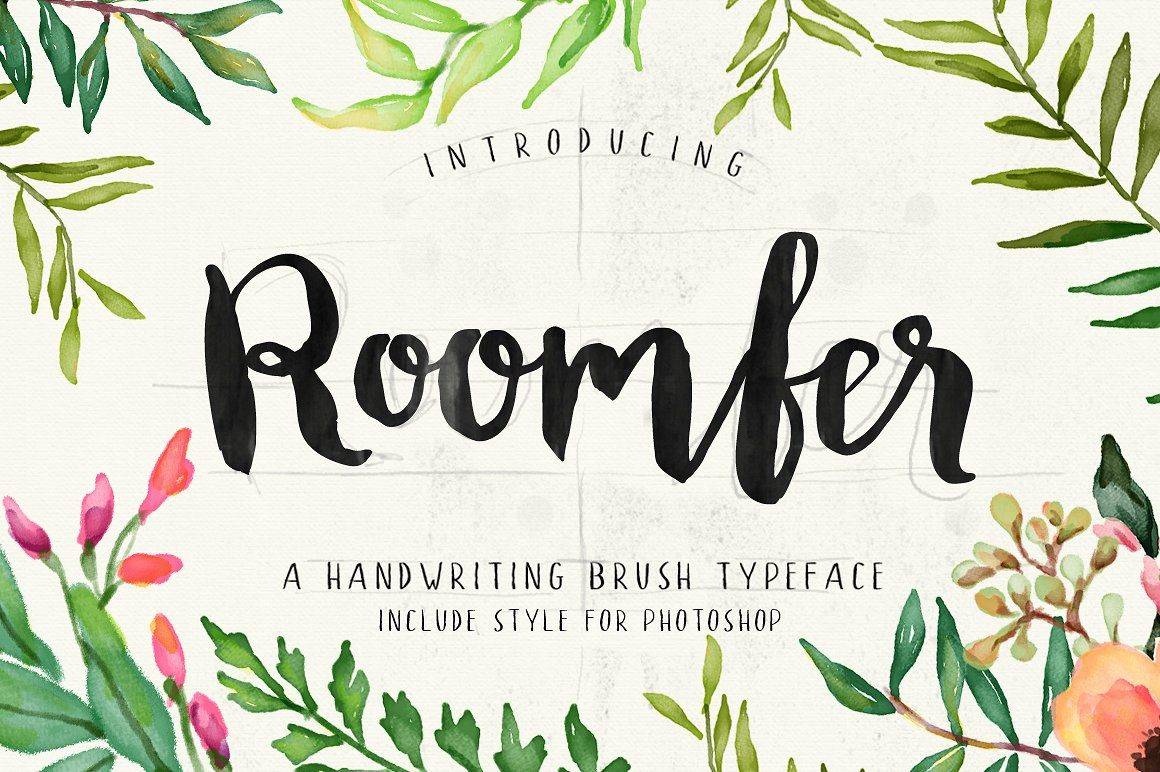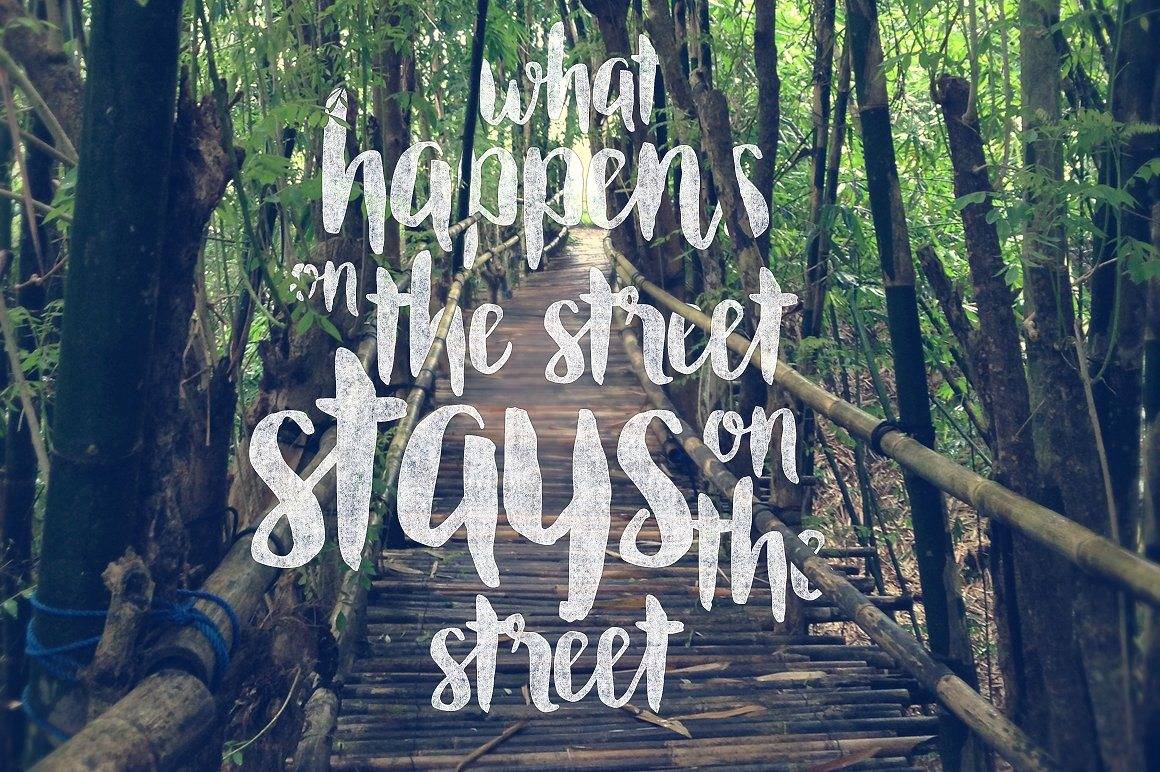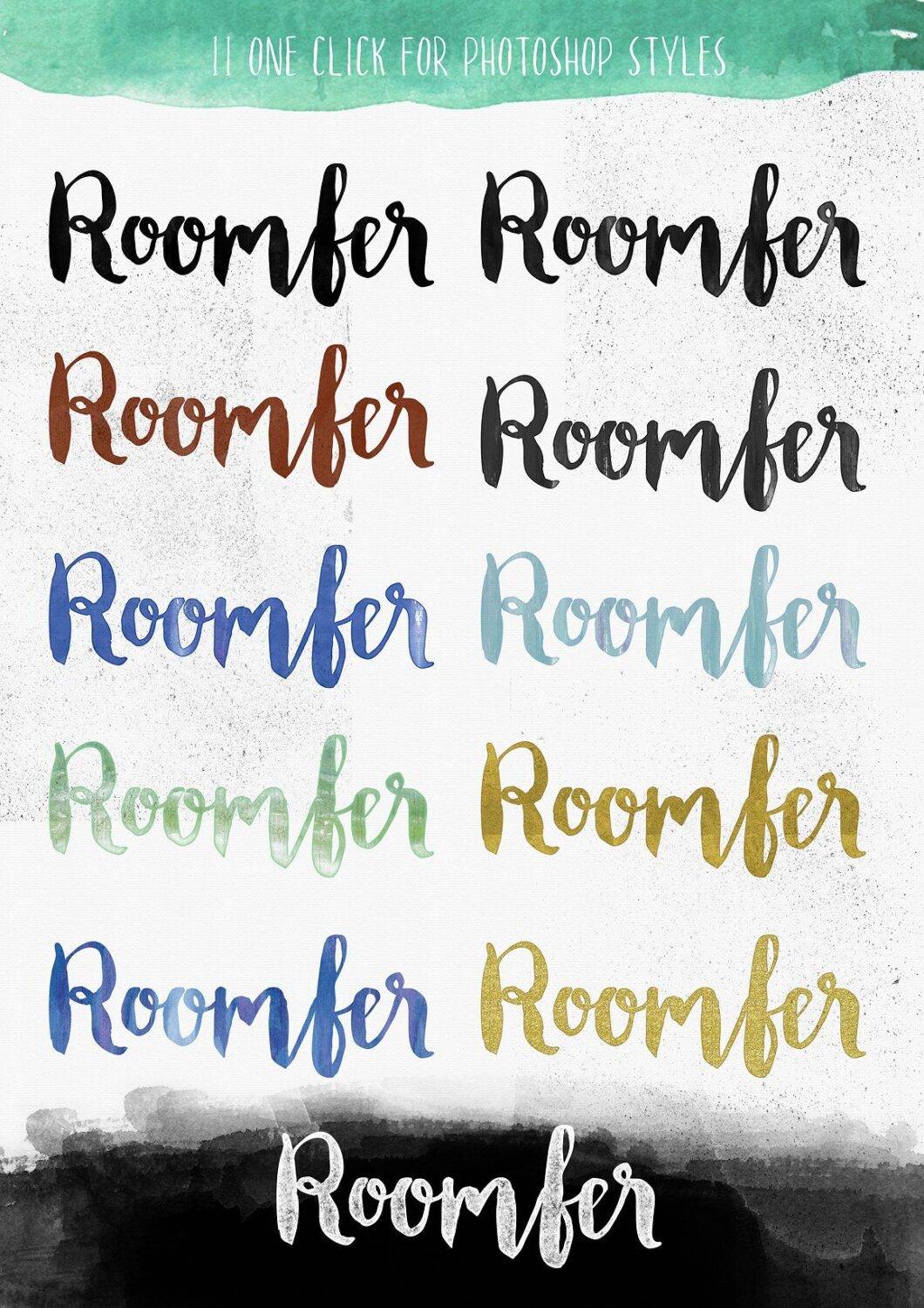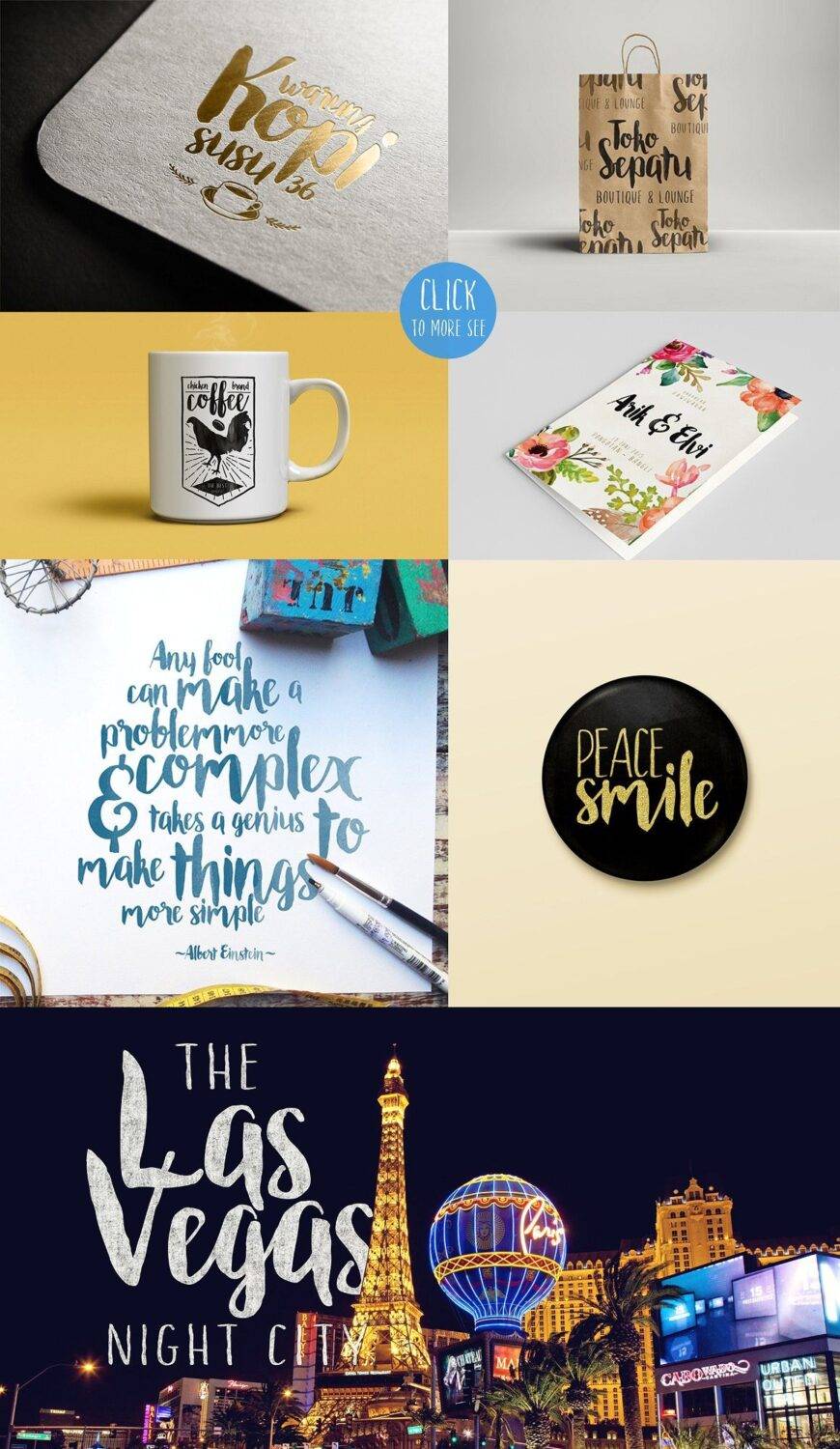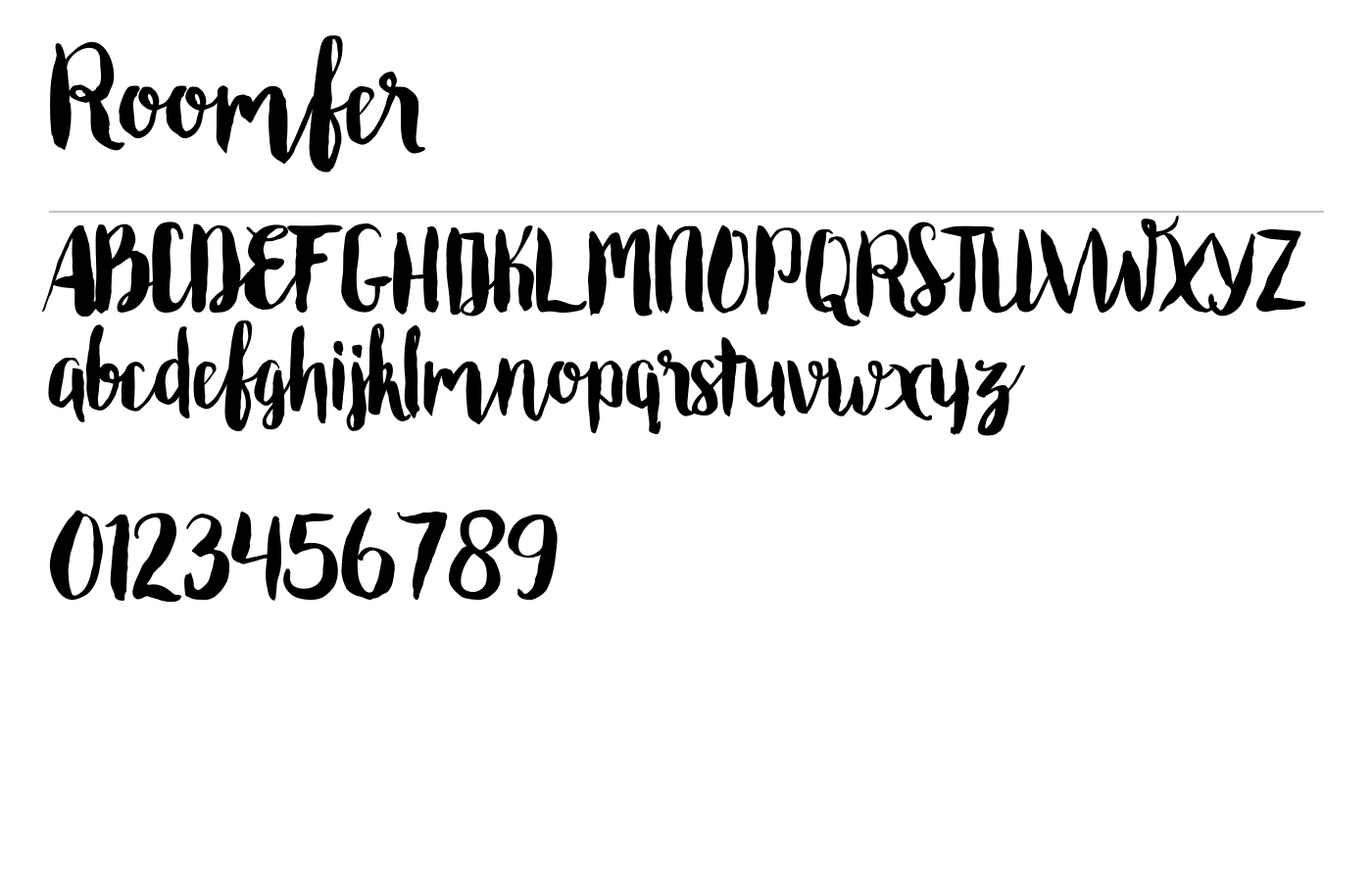
Roomfer is a lively and expressive handwritten script font with a bold, brushstroke style that gives it a casual yet artistic feel. Its irregular letterforms and strong contrast between thick and thin strokes make it perfect for eye-catching headlines, logos, and creative projects that seek a personal and dynamic touch. This font works well in designs aiming for a fun, inviting, and handcrafted aesthetic.
Roomfer Font
About Roomfer Font